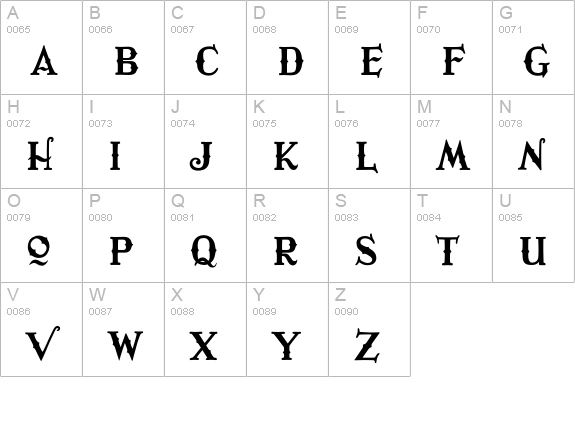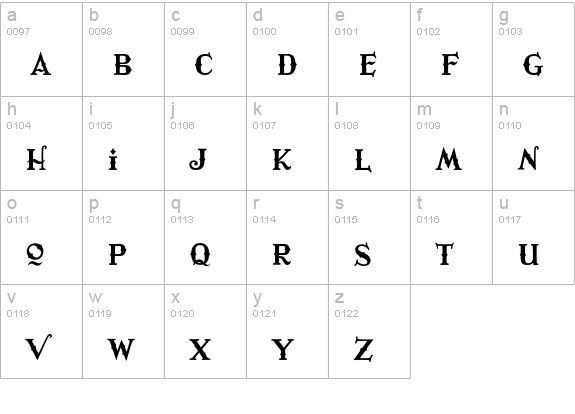
Retablo Font Details
Retablo is a beautifully crafted font that exudes elegance and sophistication. With its clean lines and exquisite details, this typeface is perfect for adding a touch of refinement to any project. Whether you're designing a logo, creating a stunning invitation, or working on a branding campaign, Retablo will elevate your work to new heights. What sets Retablo apart is not only its stunning aesthetics but also its versatility. This font is incredibly adaptable and can be used in a variety of contexts, from print to digital media. Its timeless design ensures that it will remain relevant and stylish for years to come. One of the most remarkable aspects of Retablo is that it is completely free. You read that right - this exceptional font can be downloaded at no cost from FontsMarket.com. This makes it accessible to designers of all skill levels, regardless of budget constraints. Now, everyone can enjoy the beauty and sophistication that Retablo brings to any design project. So why wait? Head over to FontsMarket.com and download Retablo today. Experience the freedom to create stunning designs with this extraordinary font. Let Retablo be your secret weapon in the quest for exquisite typography.